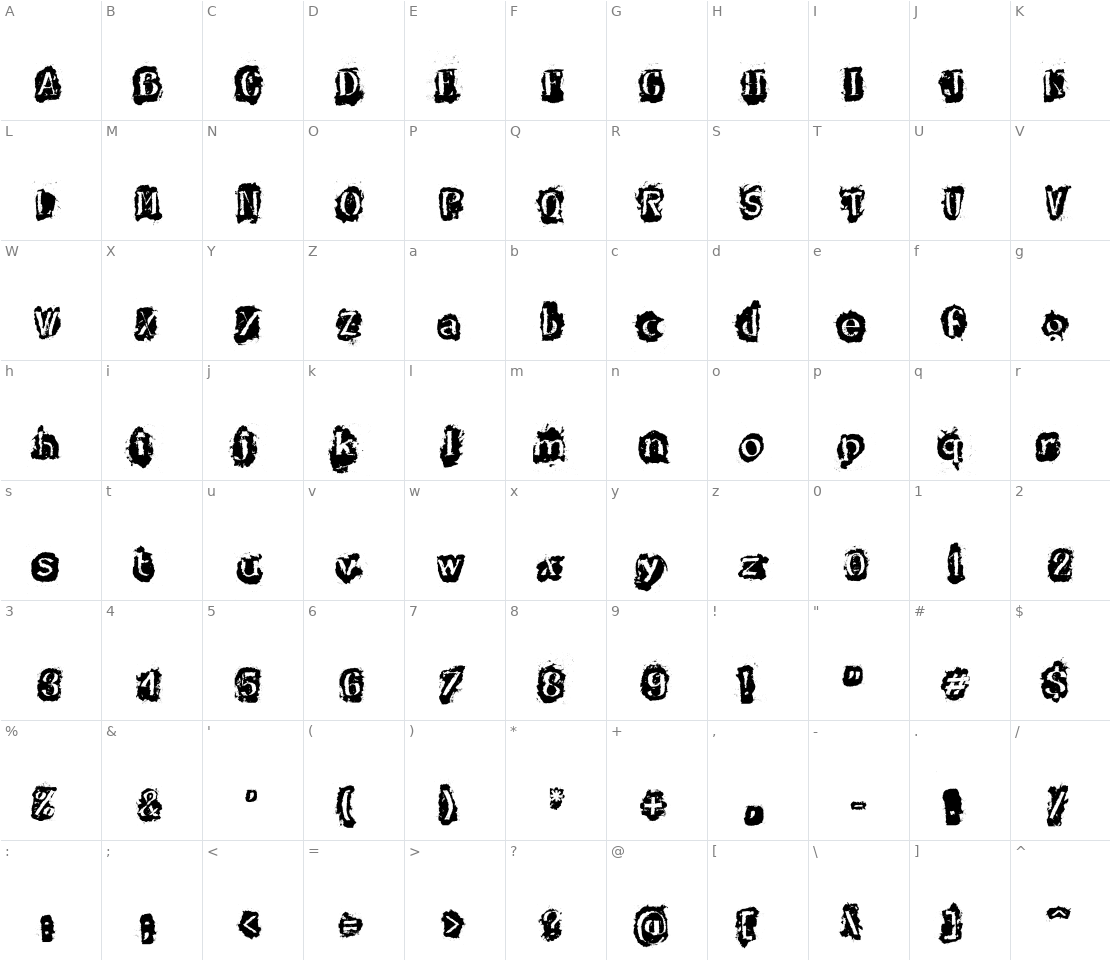
DF Stromboli
DF Stromboli is a bold, rough-edged display face by Ko Sliggers with a heavy layer of grit baked into every letterform. The distressed texture feels genuinely weathered rather than digitally faked, giving it a raw, dark energy that works on grungy posters, album art, and editorial headlines where polish would be the wrong move. Keep it big and let the roughness do the talking.